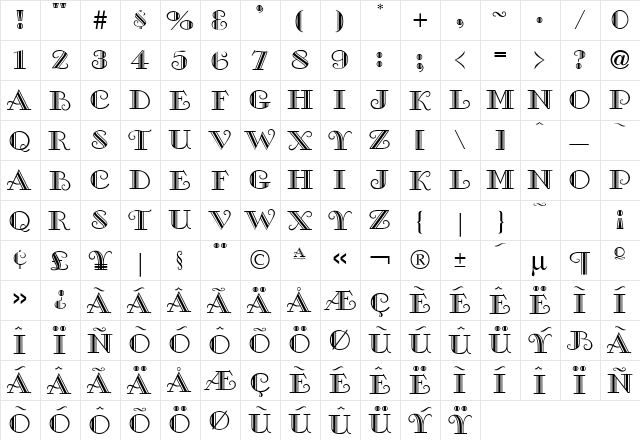
Prover Display Caps SSi Regular
Design Context for Prover Display Caps SSi Typeface
Prover Display Caps SSi is built around its visual character rather than neutral utility — its distinctive forms are designed to make an impression at display sizes.
Font Pairing: Pair with a clean neutral sans-serif for body copy to let Prover Display Caps SSi's character lead without overwhelming the composition.
Pro Tip: Treat Prover Display Caps SSi as the centrepiece of your typographic hierarchy. One strong heading set in a decorative face can carry an entire layout.